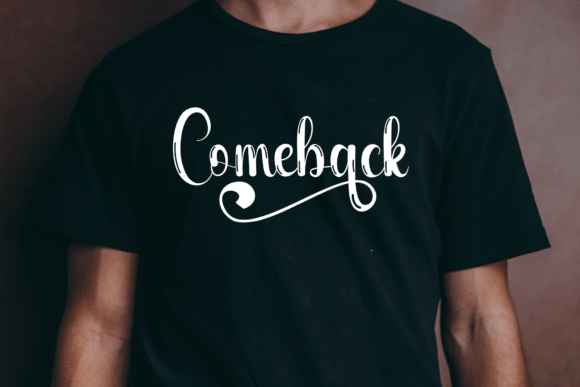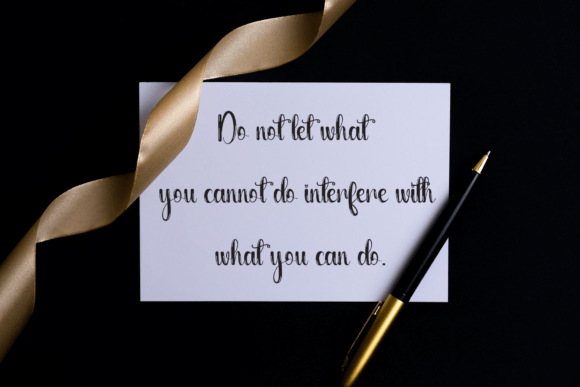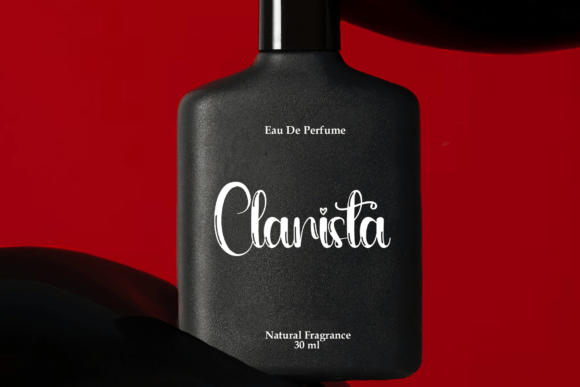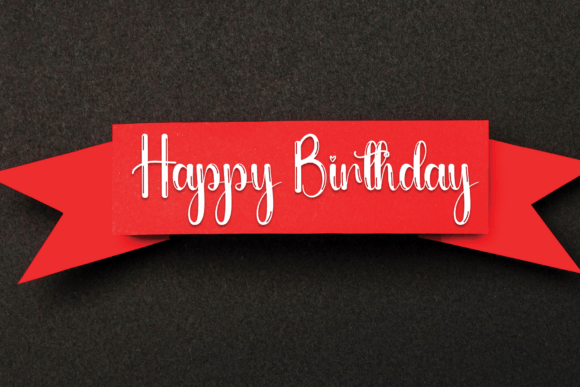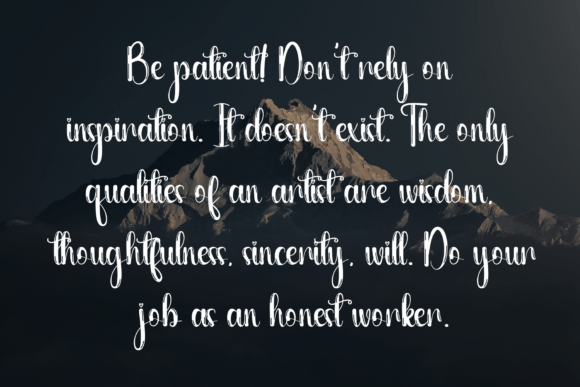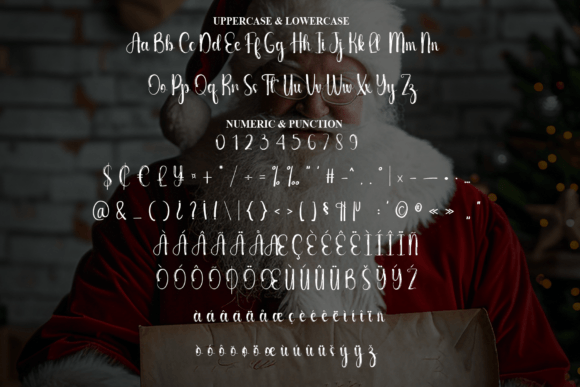
Introduction to Santaclause Font
Santaclause is a stylish handwritten script font that exudes elegance and charm with its flowing, graceful curves.
Perfect for invitations, logos, and branding, it adds a personal and sophisticated touch to any design The fontโ€™s delicate strokes bring warmth and creativity to your projects.
Key Features of Santaclause Font